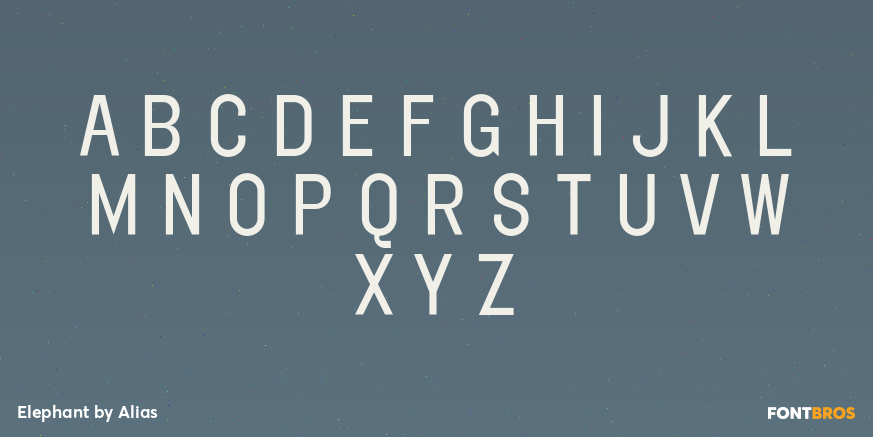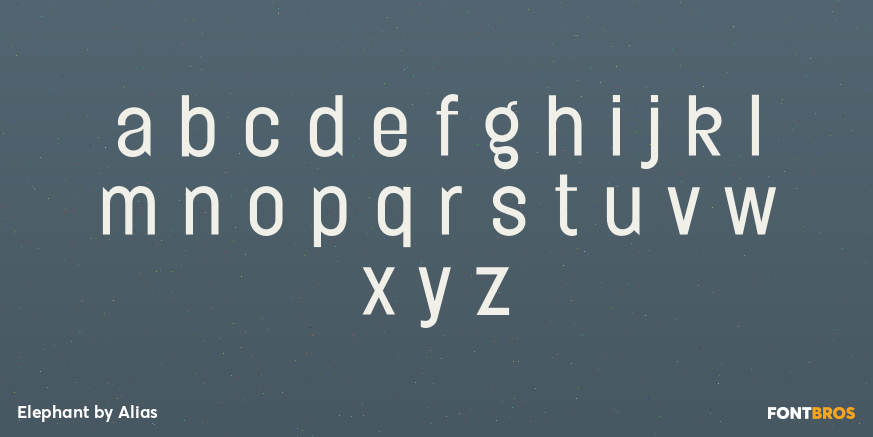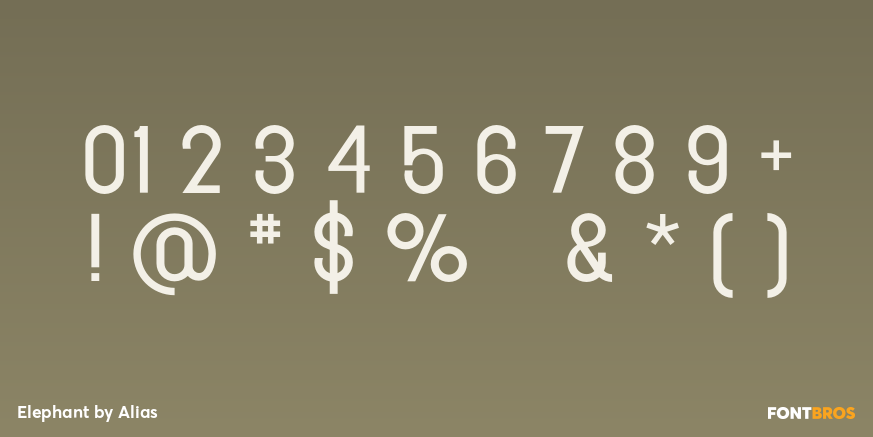
Elephant
Font Family by Alias
A contemporary interpretation of grotesque (historic) typestyle, relying on geometric shapes applied to a grid. Idiosyncrasies within the typeface are based on how this grid is constructed and applied rather than those inherent in drawing type with a pen or cutting from a block of wood. Other grot types retain the quirks of original woodcut typefaces. Elephant has a different vocabulary of quirks that remove it from being too reverential or constrained to a historic context.